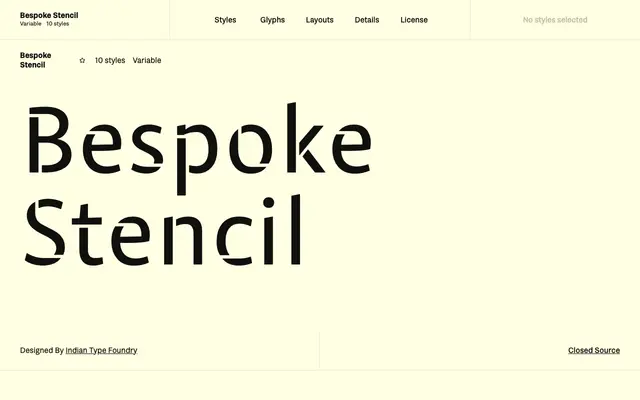
Bespoke Stencil
Fontshare · Jeremie Hornus, Theo Guillard, Morgane Pambrun, Alisa Nowak, Joachim Vu · 2021
A humanist sans serif with stencil-style stroke breaks, designed by Indian Type Foundry as part of the broader Bespoke superfamily.
Each letterform interrupts at the point where a broad-pen writer might pause, giving the typeface its stencil character without sacrificing legibility. Large, open counterforms support that legibility, while oldstyle proportional figures harmonise with the lowercase. Upright weights use double-storied 'a' and 'g'; the italics switch to single-storied forms. The family runs from Light to Extrabold with matching italics and includes variable font versions.
Classified by Fontshare as Sans/Display, Bespoke Stencil is a humanist sans serif with stencil-style breaks at stroke junctions, sharing its underlying structure with the Bespoke Sans family.